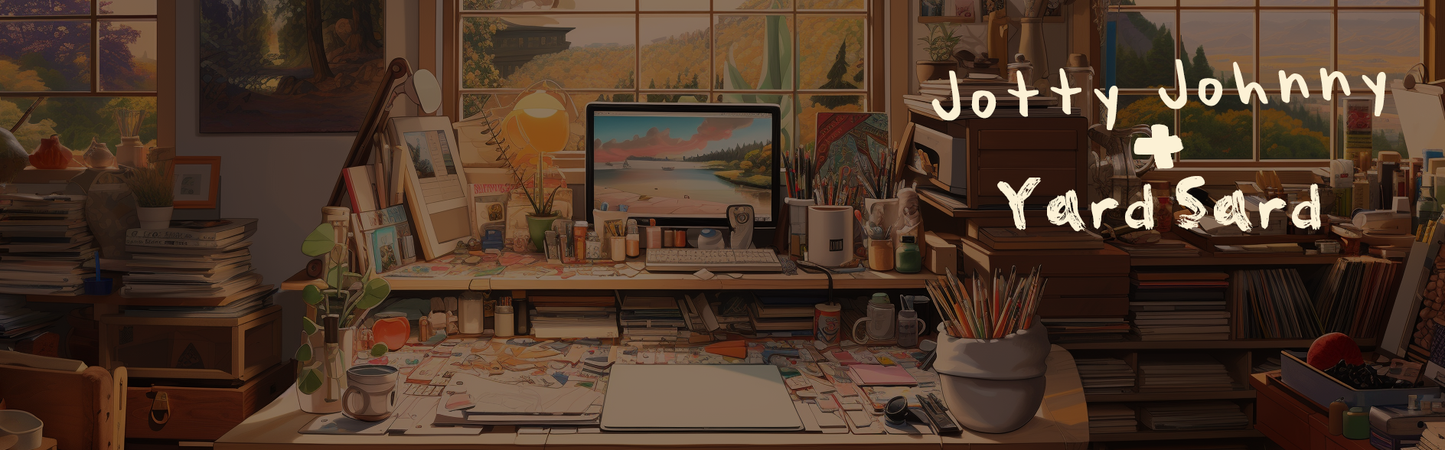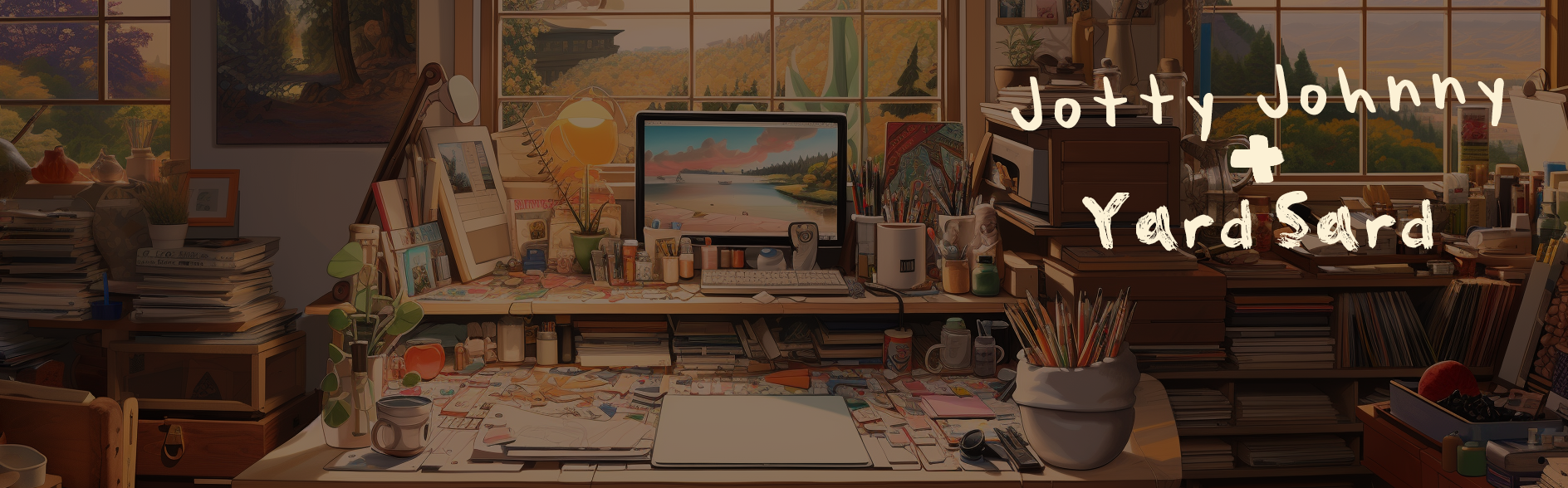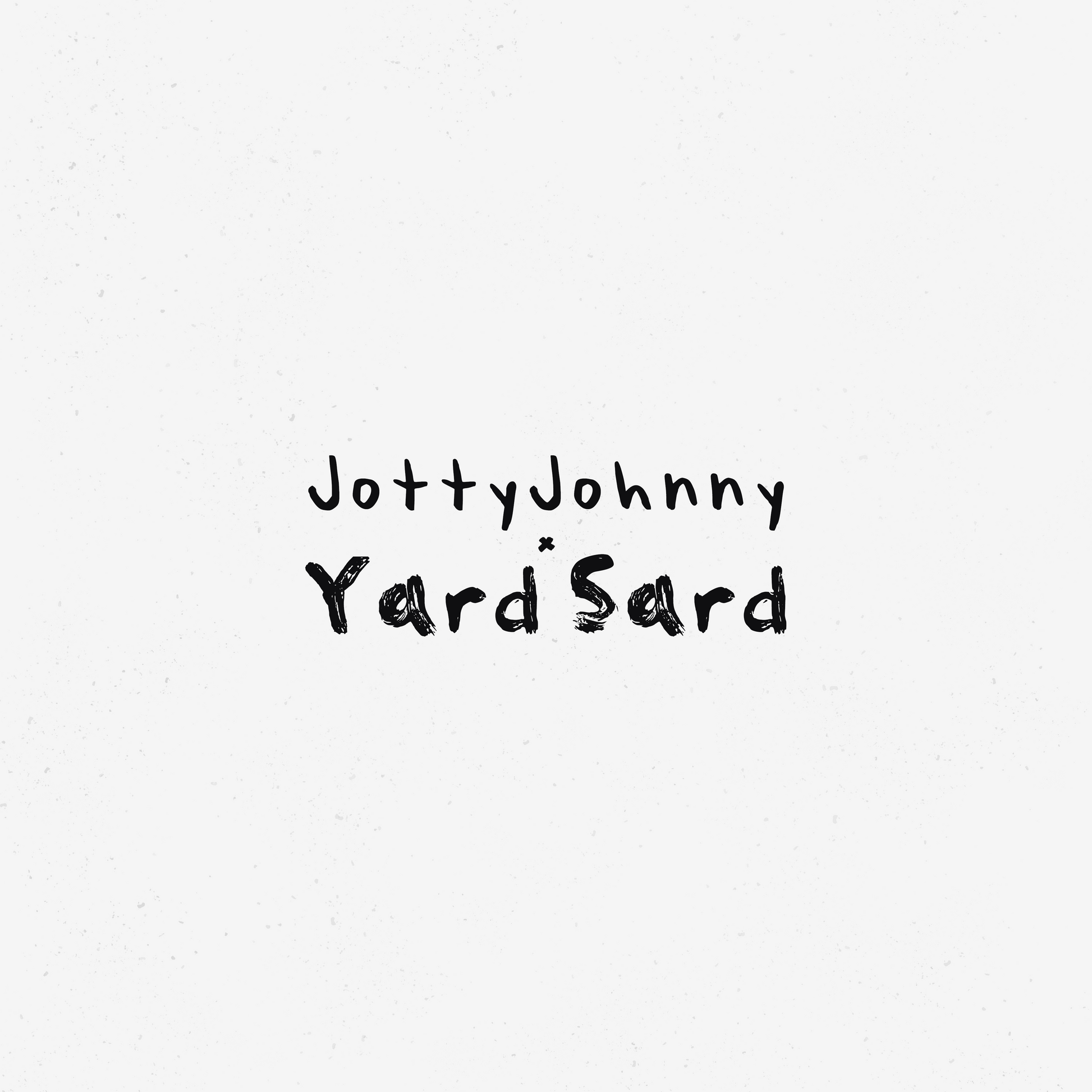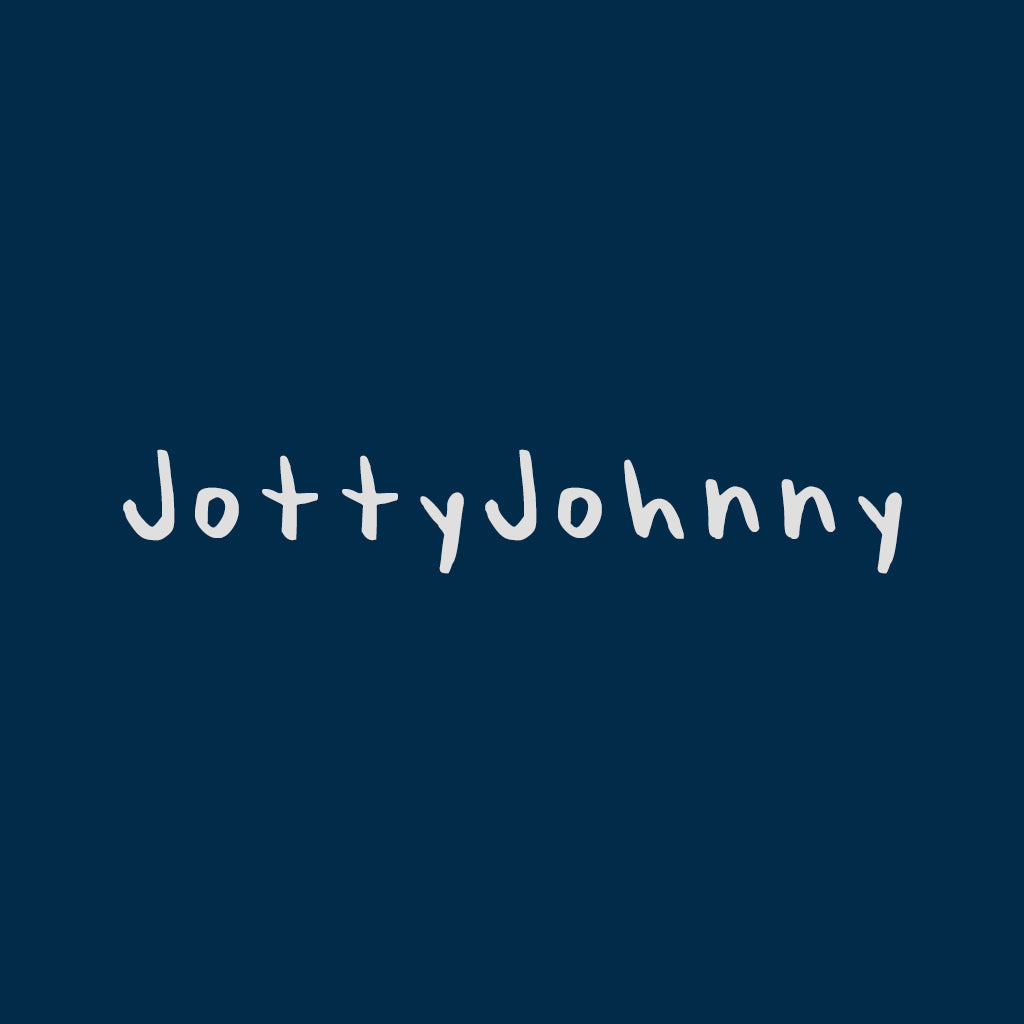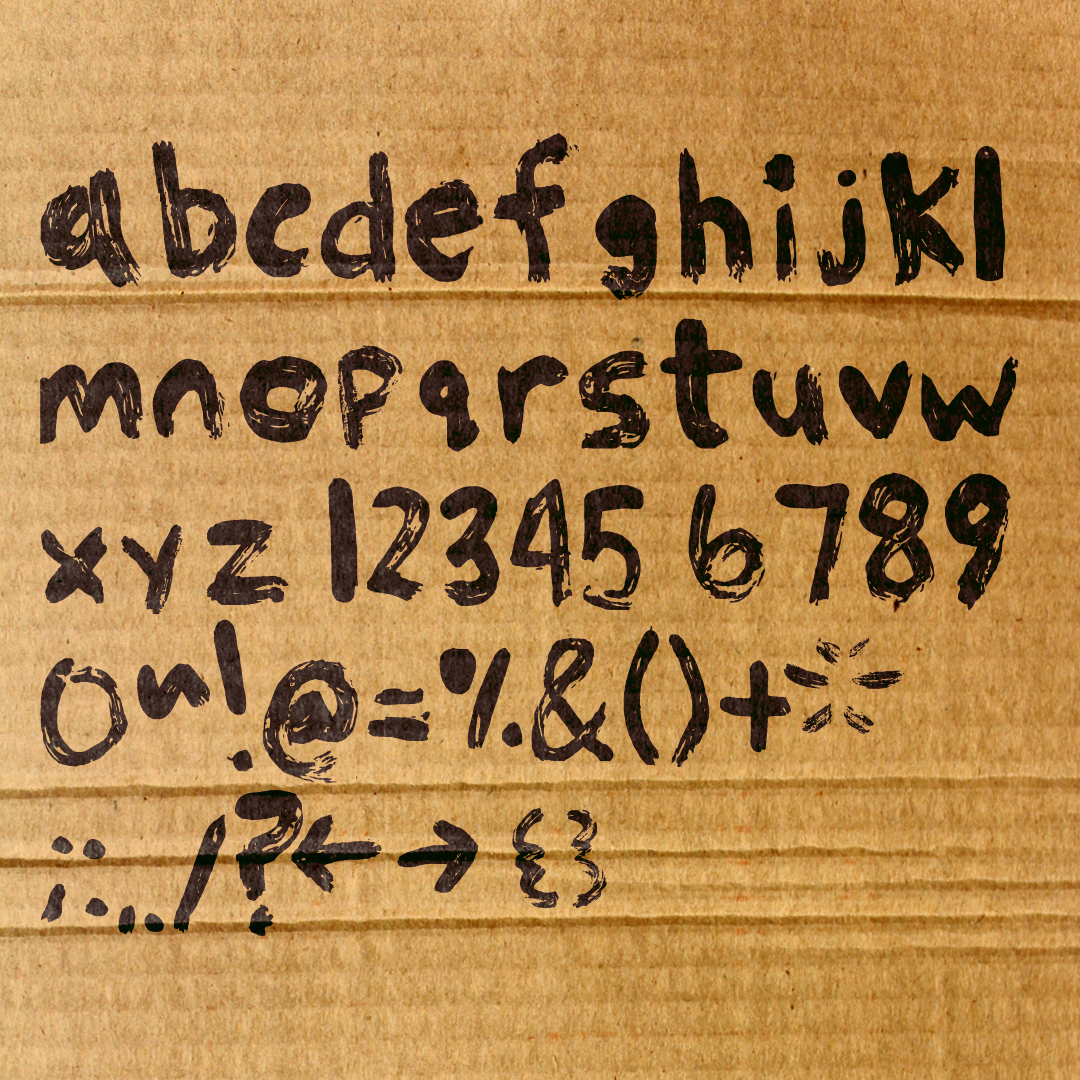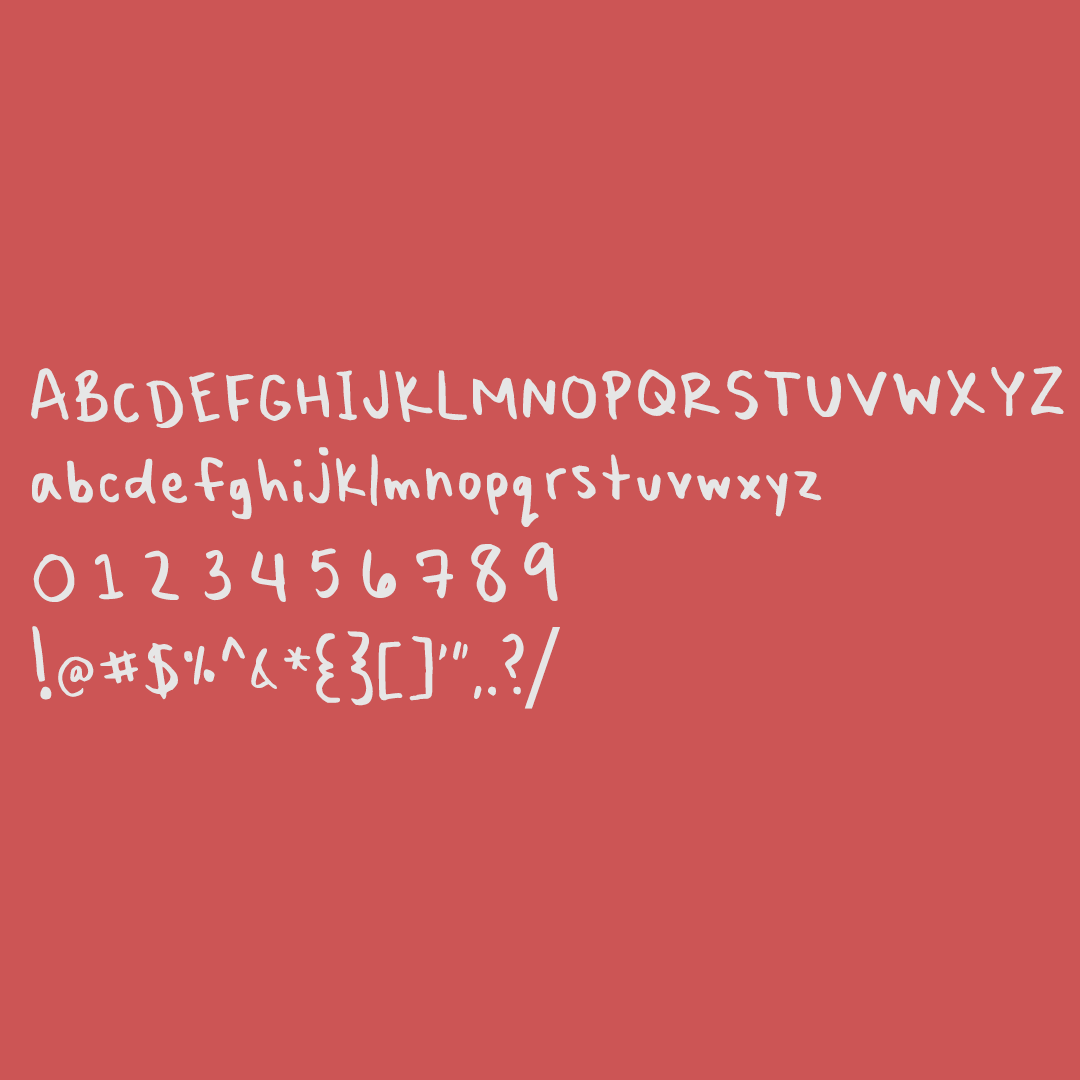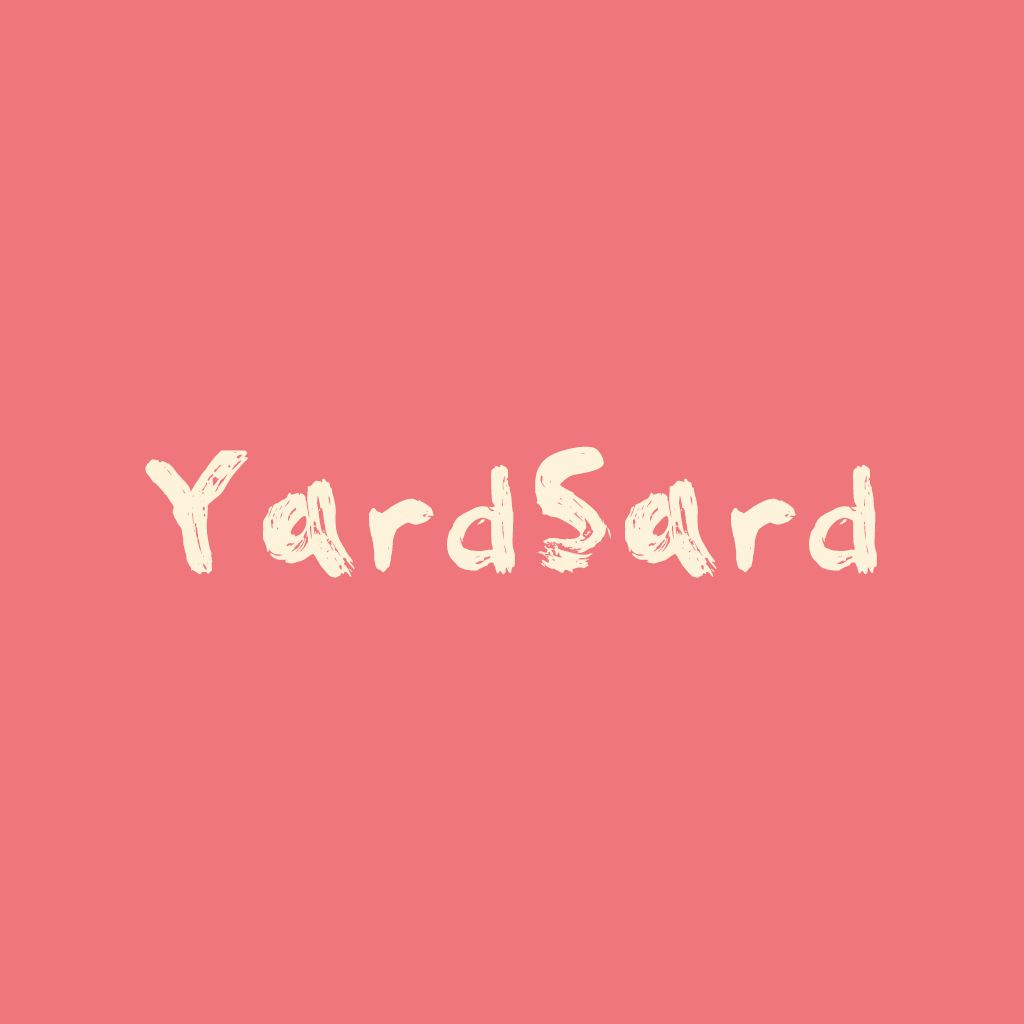
Add to your font library with these two casual, handcrafted fonts! Perfect for adding a creative element to your projects, JottyJohnny and Yard Sard will give your work that extra bit of oomph! From handwritten designs to custom lettering, the possibilities are endless—and undeniably stylish!